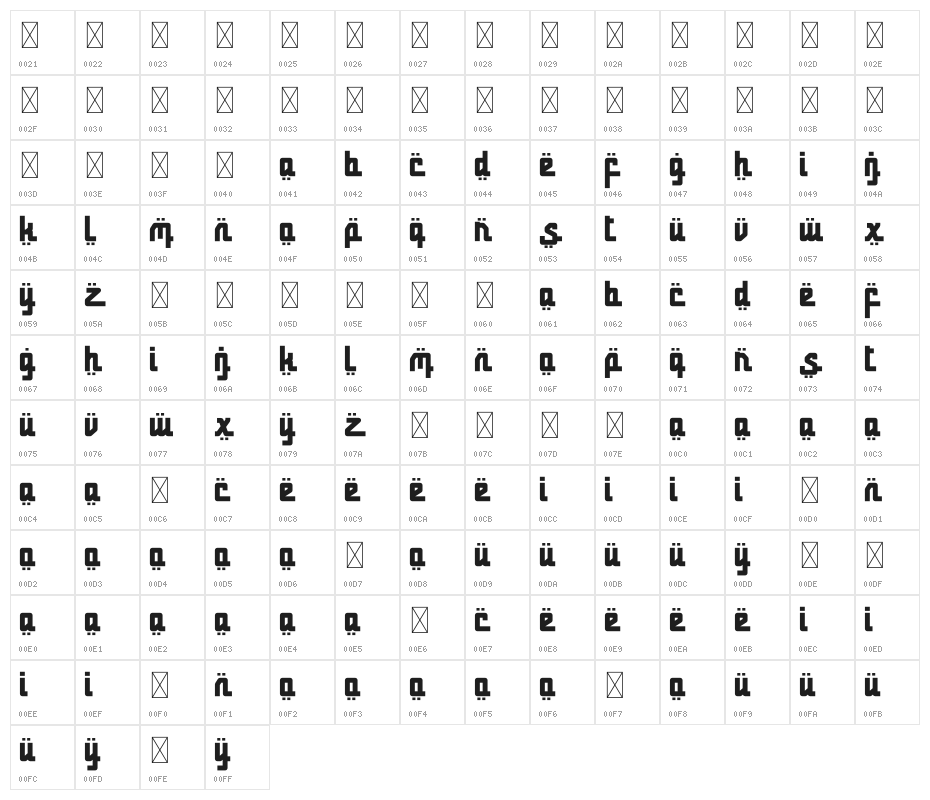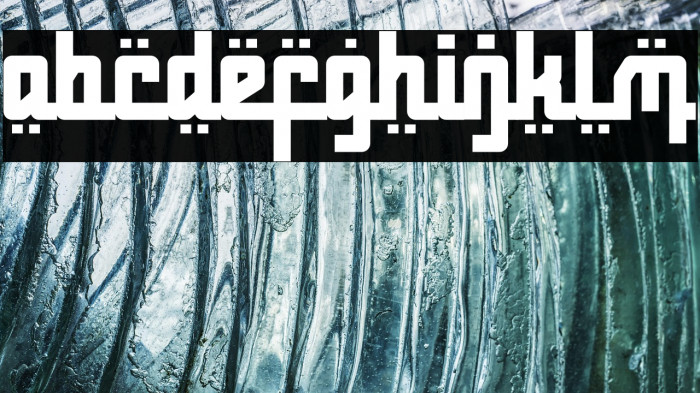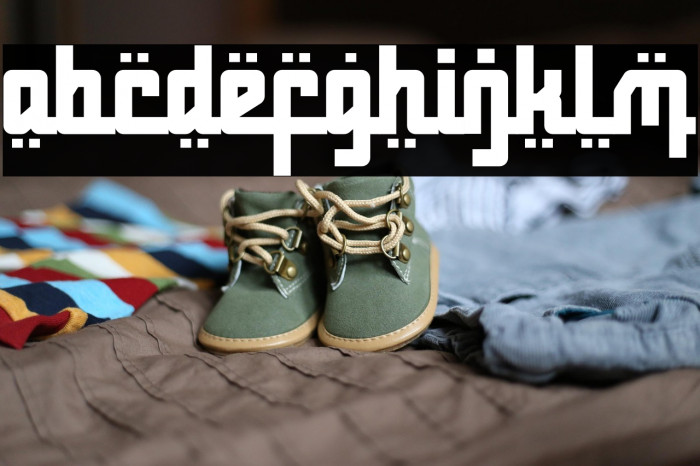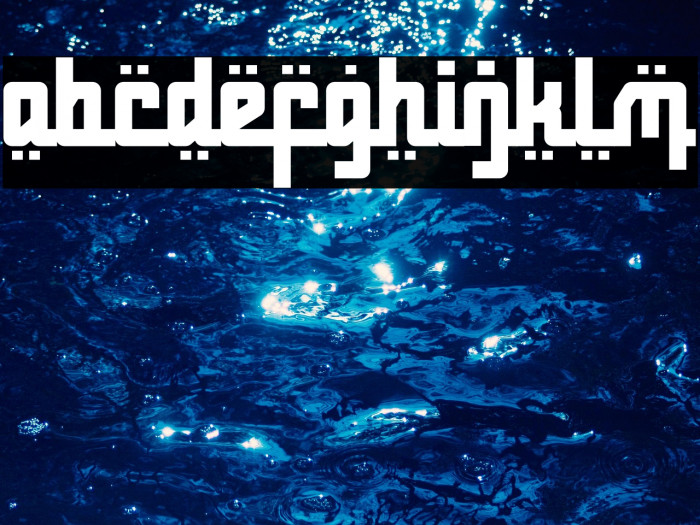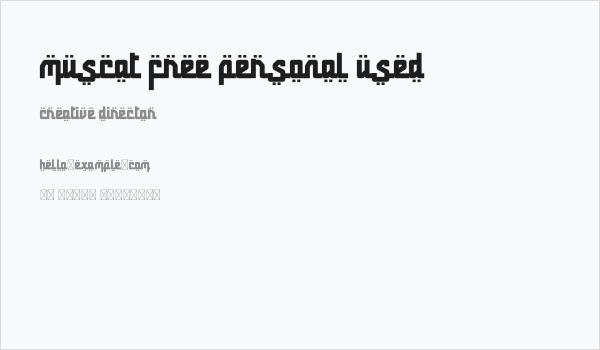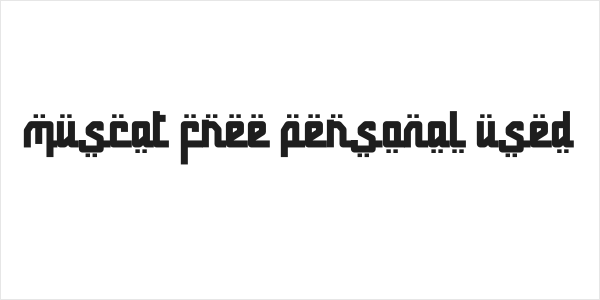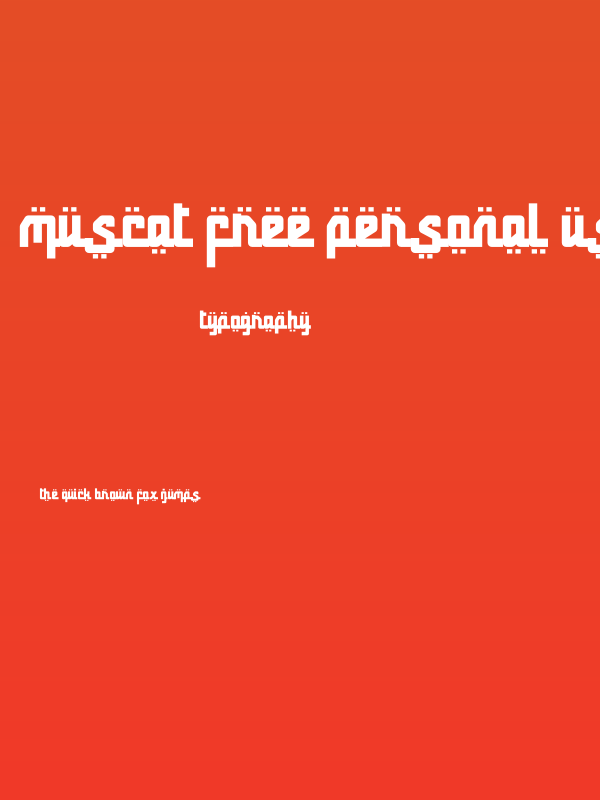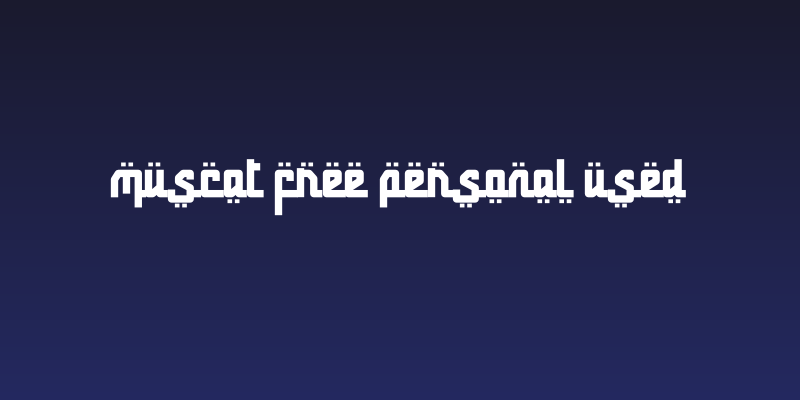
Muscat Free Personal Used Font
Muscat Free Personal Used Description
This font features a bold, geometric design with a strong emphasis on straight lines and right angles. The characters are constructed with a uniform thickness, giving it a monospaced appearance. The style is reminiscent of digital or pixelated text, with a modern and futuristic aesthetic. The uppercase and lowercase letters maintain a consistent height, contributing to a cohesive look. The font includes diacritical marks, enhancing its versatility for various languages. Its unique structure makes it stand out, ideal for projects that require a distinctive and contemporary typeface.
| Use Case | Logos, Headlines, Digital interfaces |
| Proposed Projects | Ideal for digital interfaces, video game graphics, tech branding, and futuristic designs. |